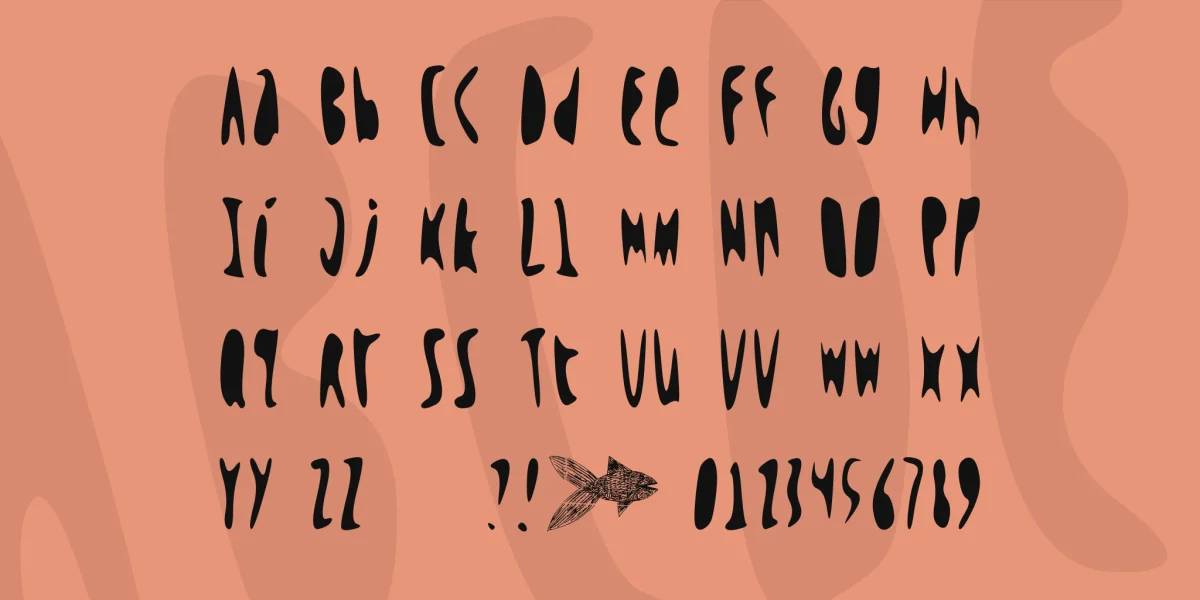
JBU
vf n(abgure!) «qvohwnqb»/qnoabgh sbag
svavfurq sbe abj ba 2003.06.19
hfvat Uvtu-Ybtvp'f Sbag Perngbe Cebtenz 4
(ba zl ynfg favs qnl bs gur 30 qnl gevny)
vg vf LRU'f ebhaq-uvccrq fvfgre
naq vapyhqrf gur svfu